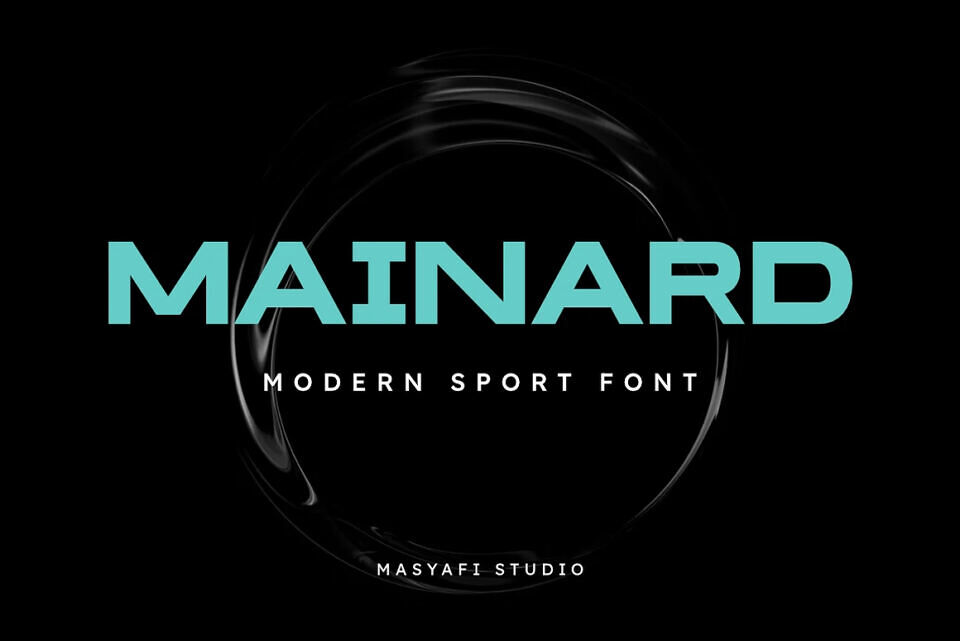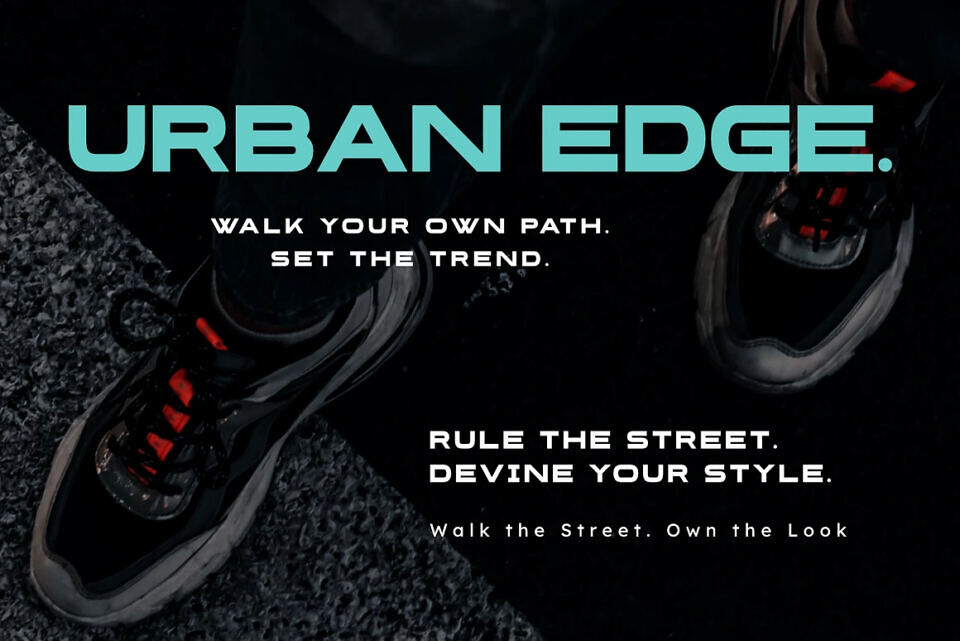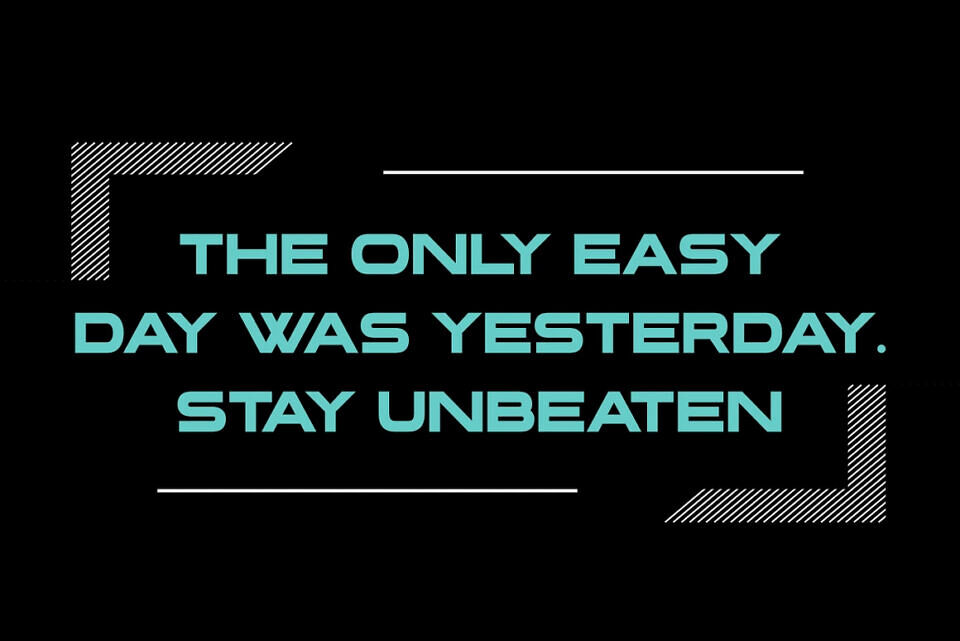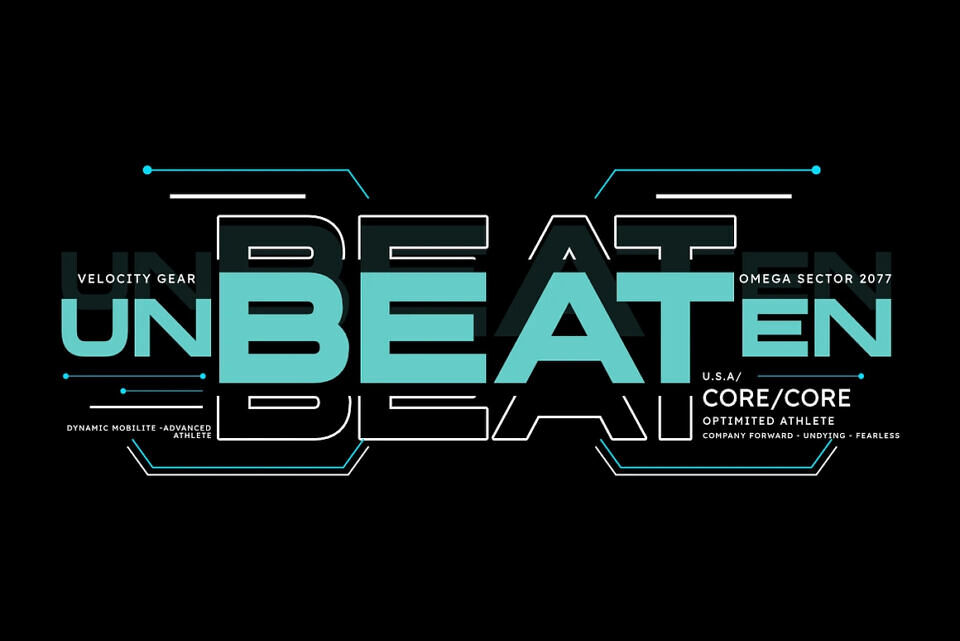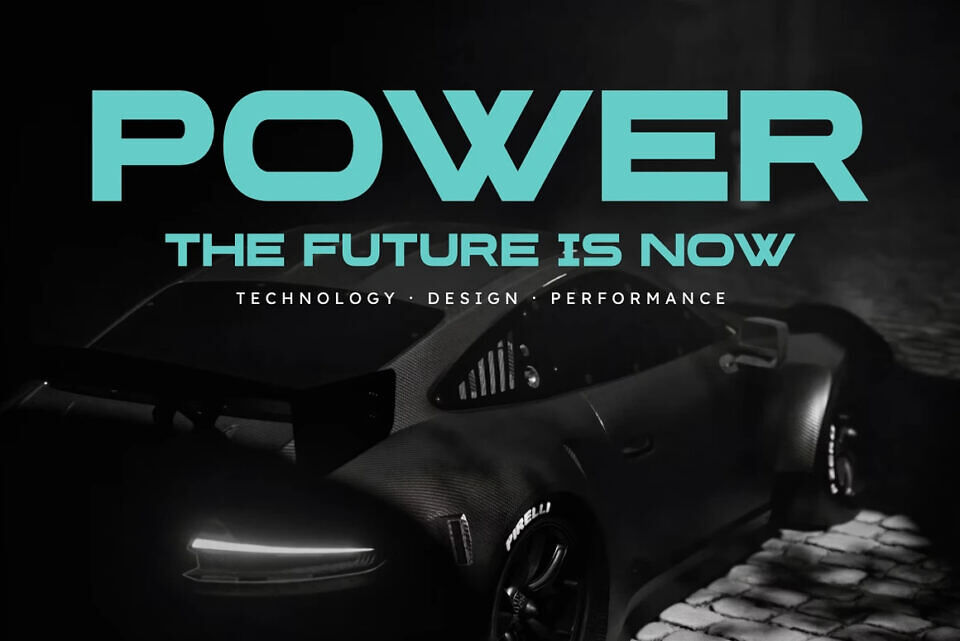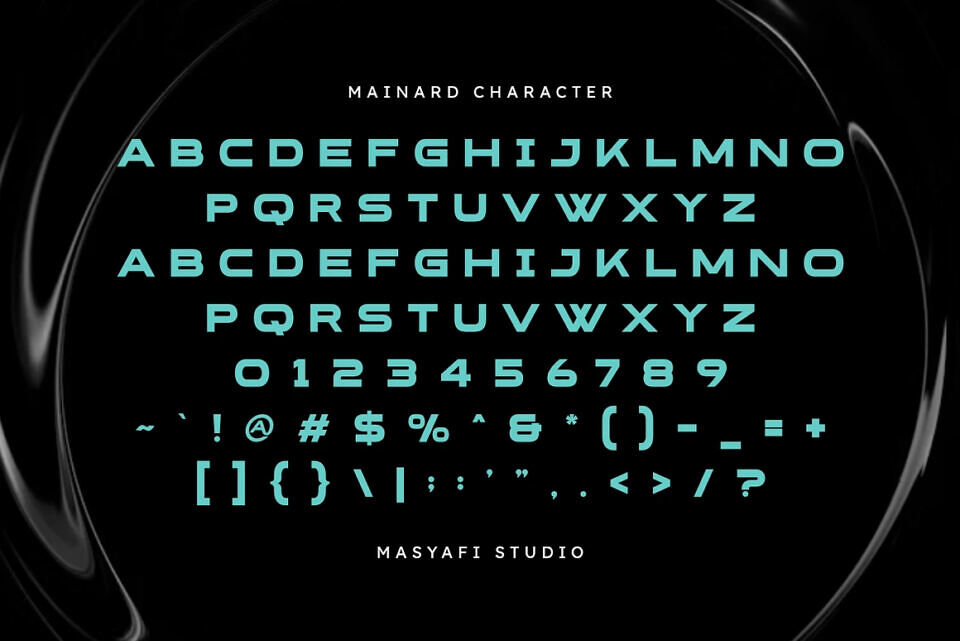
Mainard Font
Introducing Mainard, a bold and powerful Modern Sport Font built for performance and precision. With its strong geometric structure and confident letterforms, Mainard embodies energy, motion, and competitive spirit — making it the perfect choice for sports branding, activewear, and modern digital designs.
Designed to stand out on jerseys, posters, and promotional visuals, Mainard delivers impact and readability in every setting. Its clean lines and balanced proportions bring a professional yet dynamic look that enhances the strength of your brand identity.